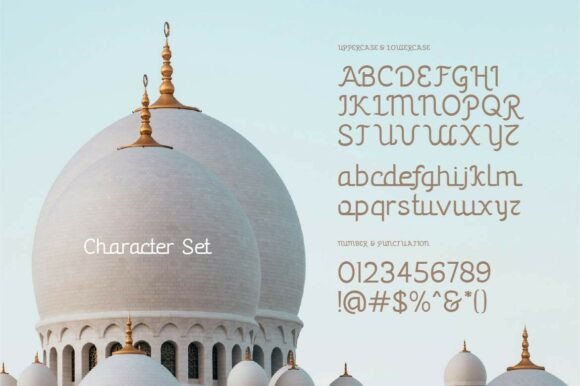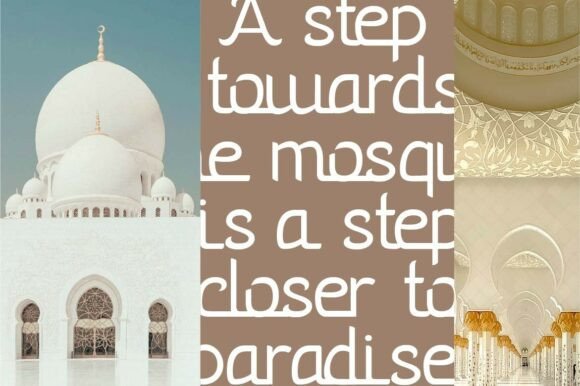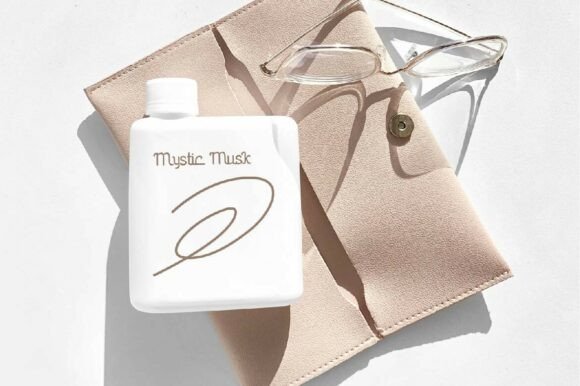
Introduction to Rohanna Font
Enter Rohanna Font, a modern Islamic display font that seamlessly blends contemporary sans-serif structure with the ornate beauty of Middle Eastern calligraphy. With its spiritual yet sophisticated energy, Rohanna Font is the perfect choice for designers looking to add a touch of timeless elegance to their work.
- Rohanna Font comes in a single weight, making it perfect for projects where a consistent and sleek look is desired.
I recently stumbled upon the Rohanna Font while searching for a design resource for my creative project, and I must say I’m quite impressed. The font’s sleek, modern design makes it perfect for a wide range of applications, from digital to print.
- What works well: ✨ The Rohanna Font is incredibly versatile and can be used for both body text and headings, making it a great addition to any design project. Its high quality and unique aesthetic make it stand out from other fonts in its class.
However, I did encounter a few limitations. ⚠️ The font’s limited character set might be a concern for designers who require a wide range of special characters or languages.